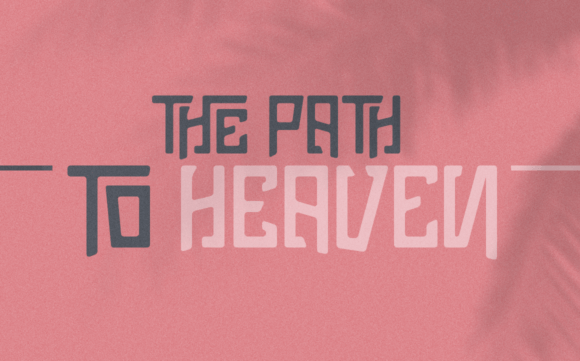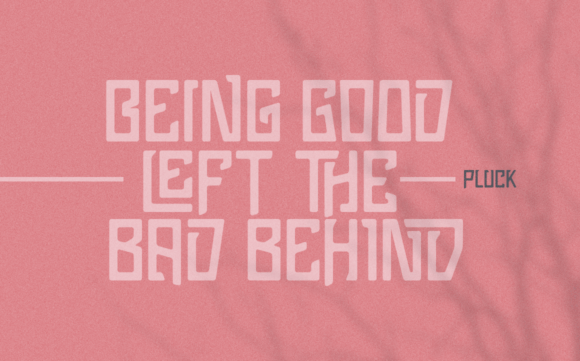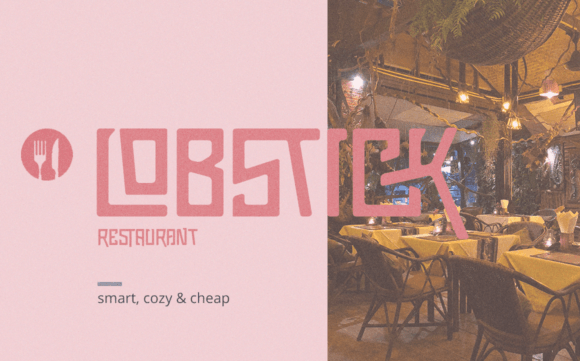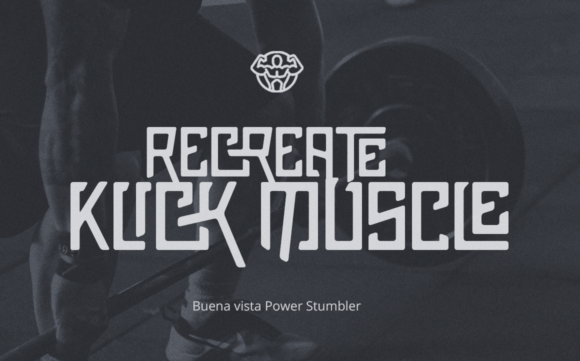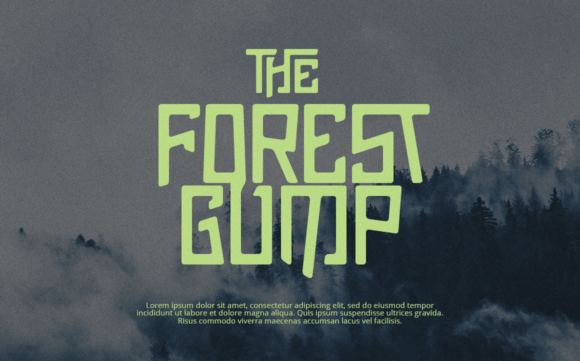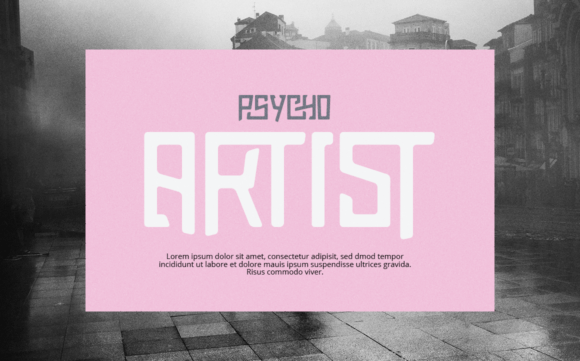
Introduction to Pluck Font
Have you ever stared at a blank canvas, waiting for the perfect idea to strike? That’s exactly what happened to many designers when they first laid eyes on the Pluck Font. This stunning Display typeface is the epitome of elegance and modernity, making it a go-to choice for any creative project that demands a unique touch.
As a valuable design resource, the Pluck Font is a high-quality solution for designers looking to elevate their work. Whether you’re crafting magazine headers, movie posters, or flyer designs, this font is sure to leave a lasting impression. Plus, with a transparent background, you can seamlessly integrate it into your projects without any hassle. And the best part? You can download the Pluck Font for free, making it an accessible and affordable option for designers of all levels.
Key Features of Pluck Font
- High-quality design resource with a unique, creative feel, perfect for various projects.
- Designed to be highly versatile, suitable for a wide range of creative projects, from logos to graphics.
- Supports various languages and characters, making it a great resource for multilingual designs.
Honest Review: Pluck Font
I recently stumbled upon the Pluck Font while searching for a free download to enhance my design resource collection. I must say, I’m impressed with the overall quality and versatility of this font.
Here’s what I like about the Pluck Font:
- ✨ Beautifully designed with a unique and modern style, perfect for creative projects that require a touch of elegance.
- ✨ High-quality vector graphics ensure that the font remains crisp and clear, even when scaled up or down.
- ✨ Transparent background, making it easy to combine with other design elements.
- ⚠️ Limited character set, which may not be ideal for projects that require a wide range of characters.
- ⚠️ Not suitable for use in very small sizes, as the font may lose its clarity.
Overall, I’m pleased with the Pluck Font and would recommend it for designers working on creative projects that require a modern and elegant look. While it may have some limitations, the quality and versatility of the font make it a valuable addition to any design resource collection.
Pluck Font is suitable for various creative projects, including logos, branding materials, social media graphics, and marketing materials. Its high-quality design and transparent background make it a great choice for designers who want to create professional-looking designs quickly and easily.
Does the Pluck Font have a transparent background?
Yes, the Pluck Font has a transparent background, making it perfect for use on images or backgrounds with a transparent or gradient effect. The font’s transparent background allows it to blend seamlessly with the surrounding design, creating a professional and polished look.